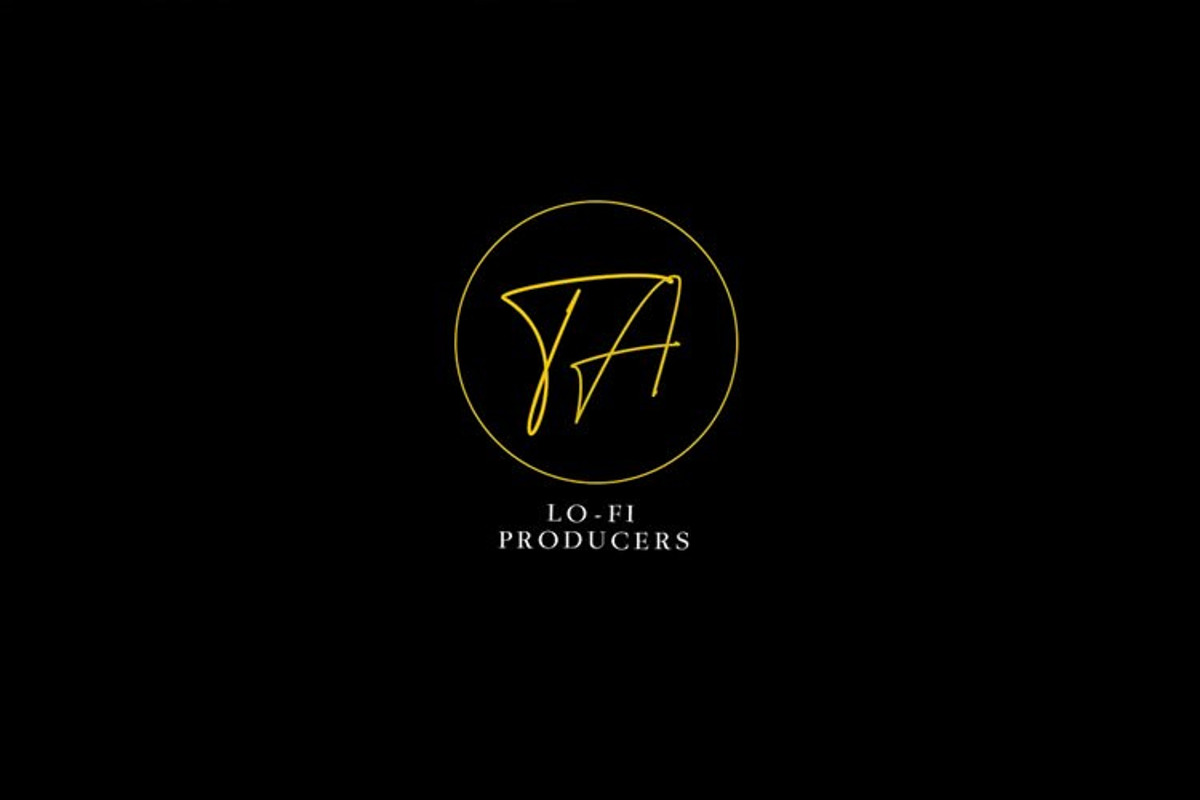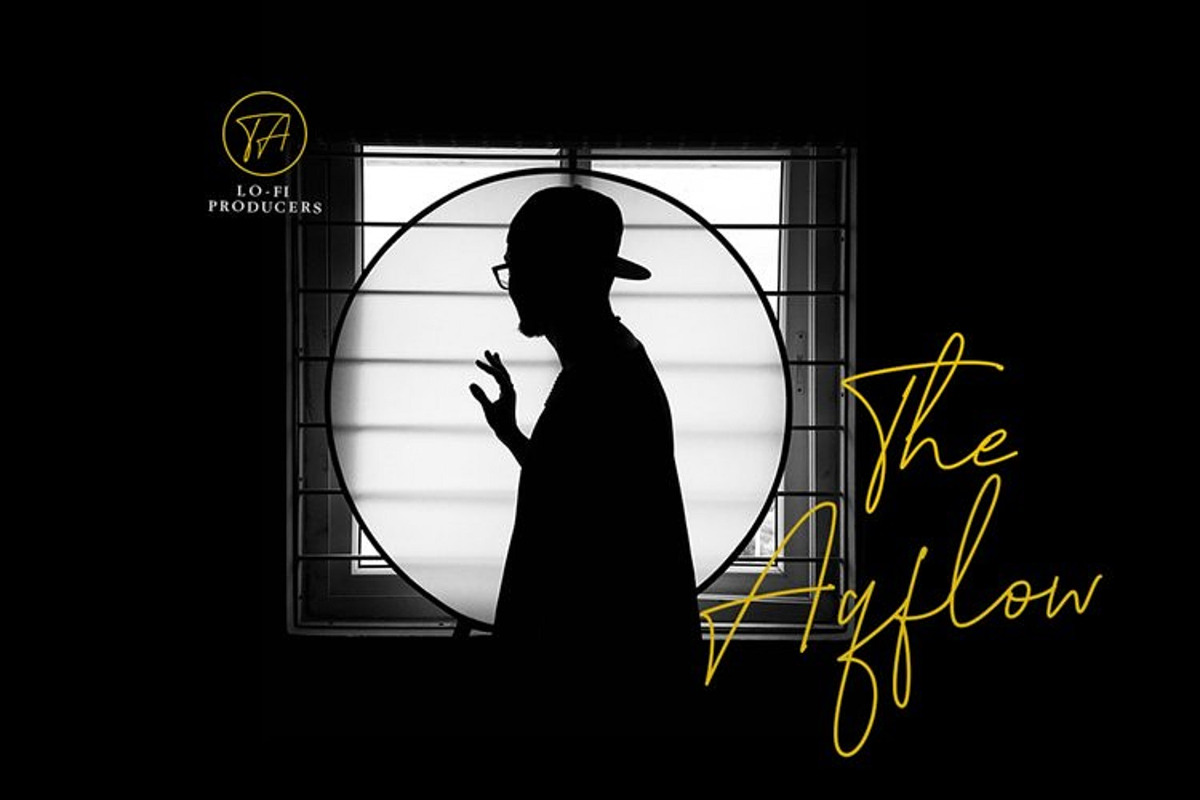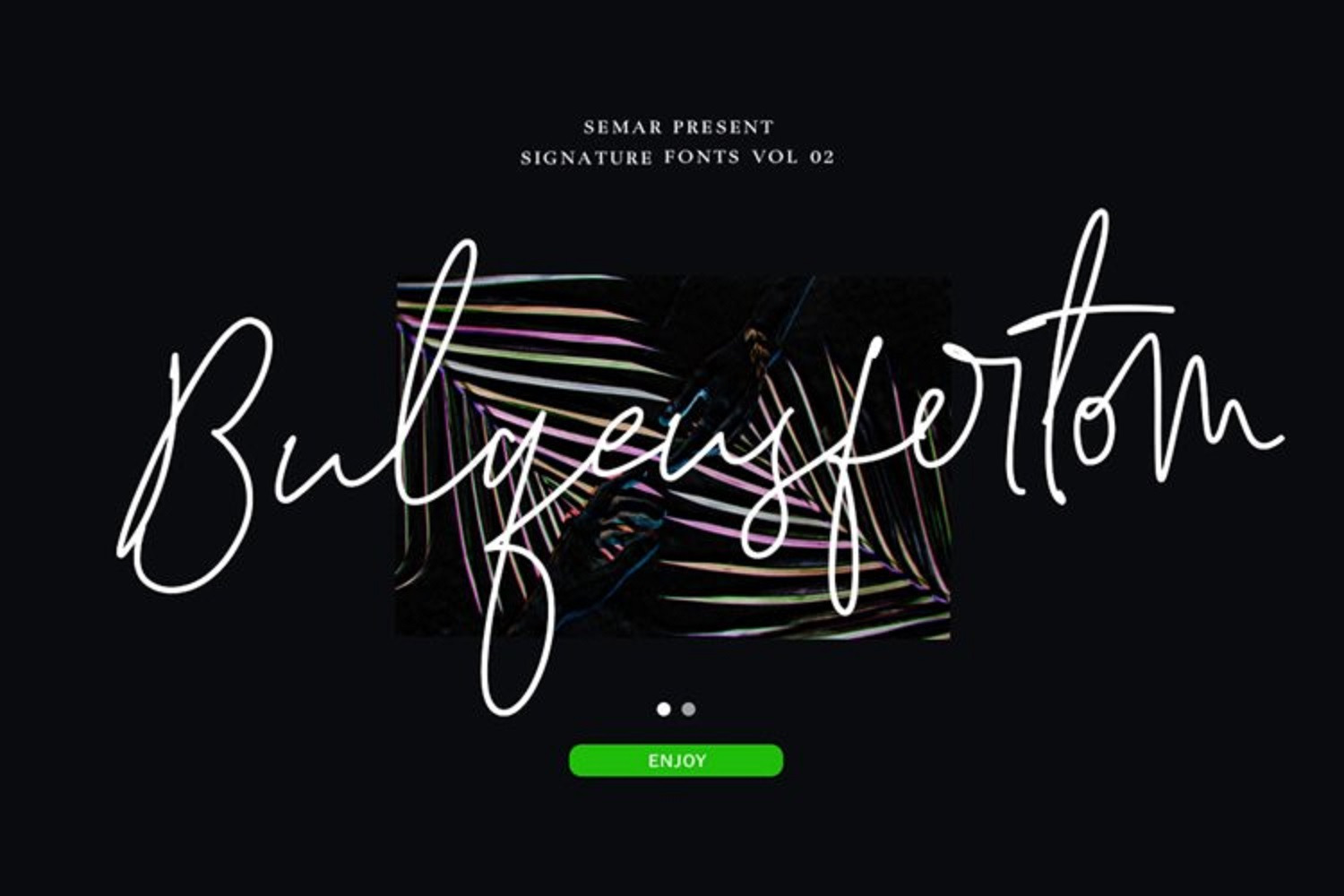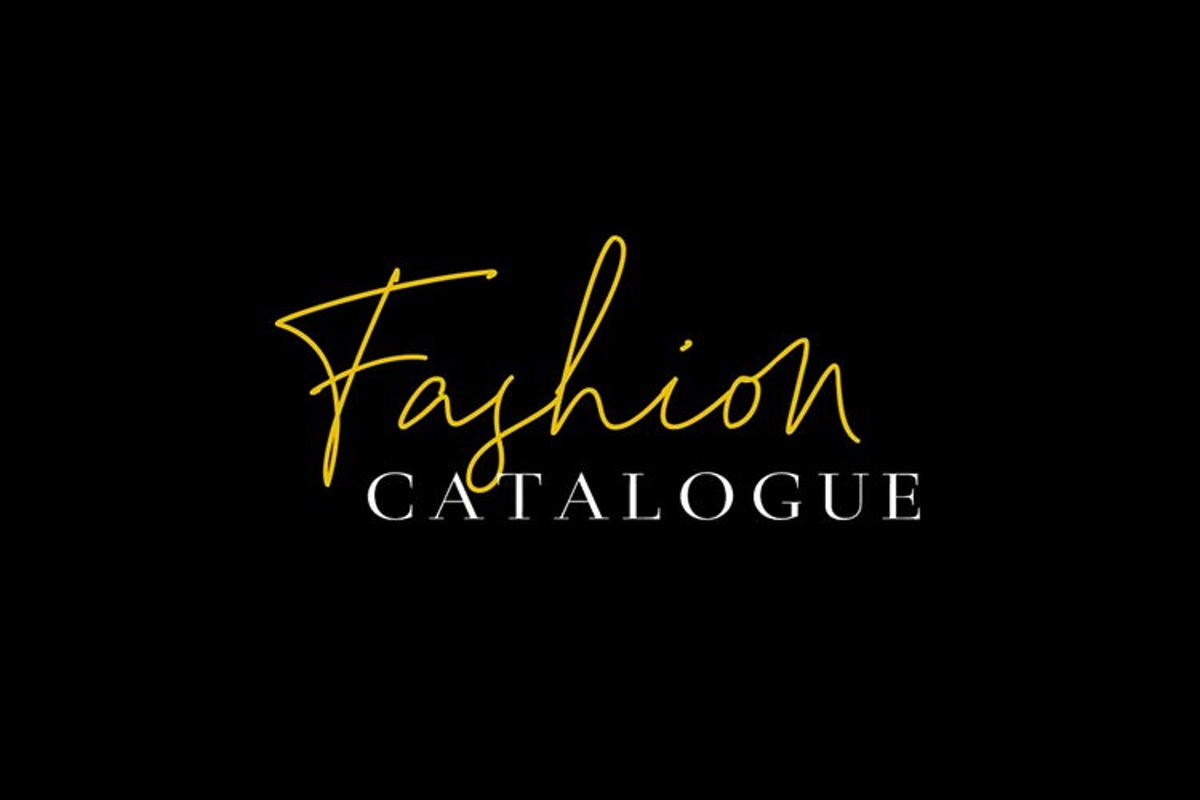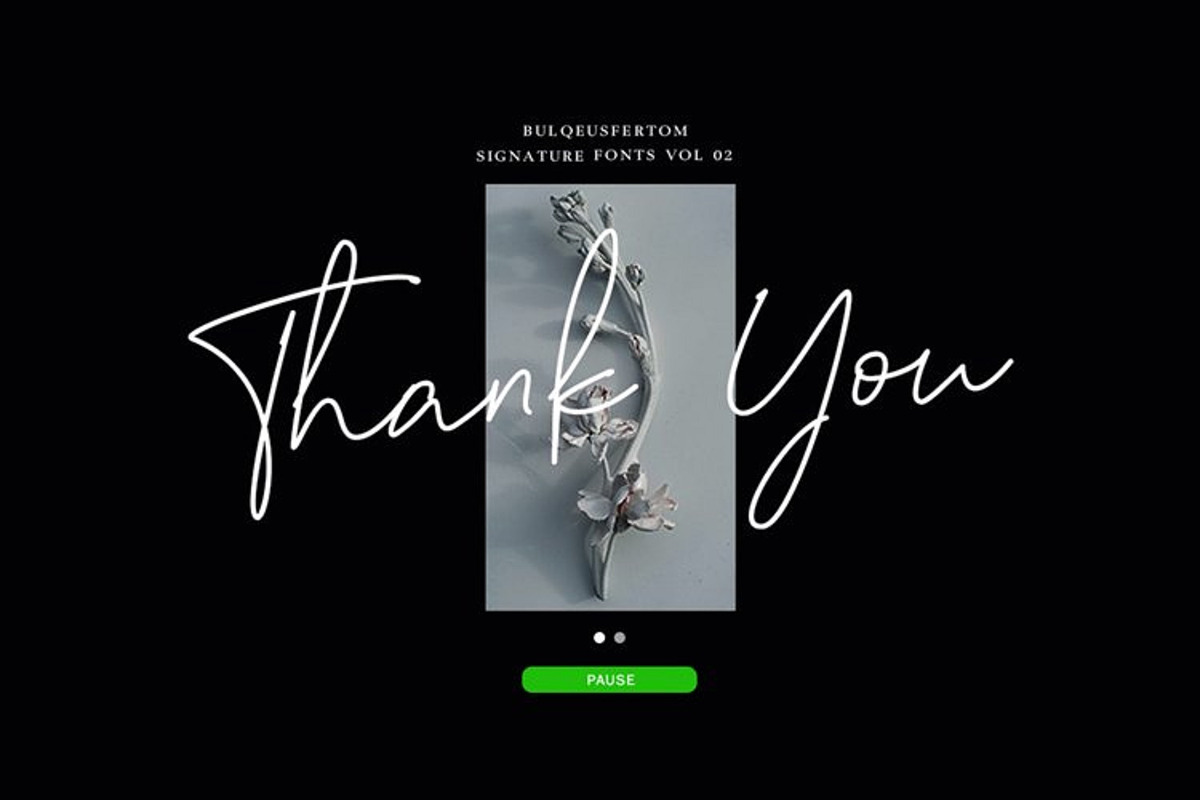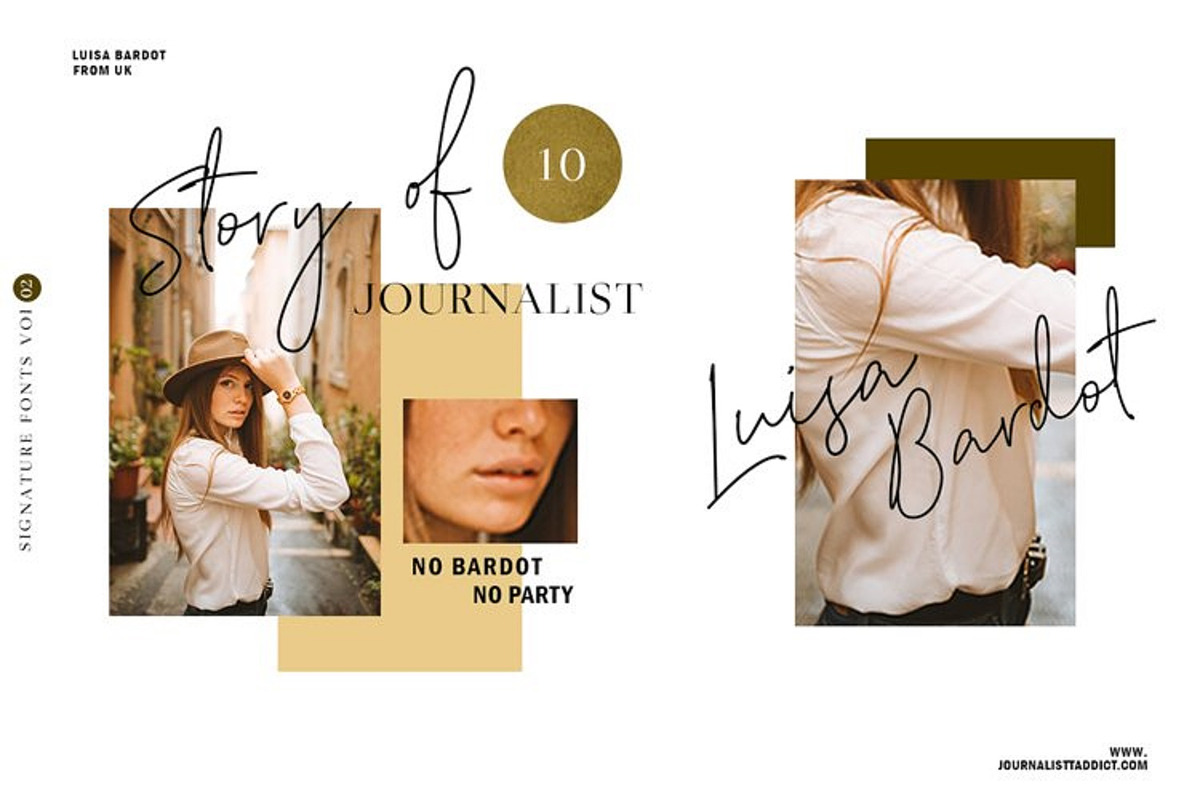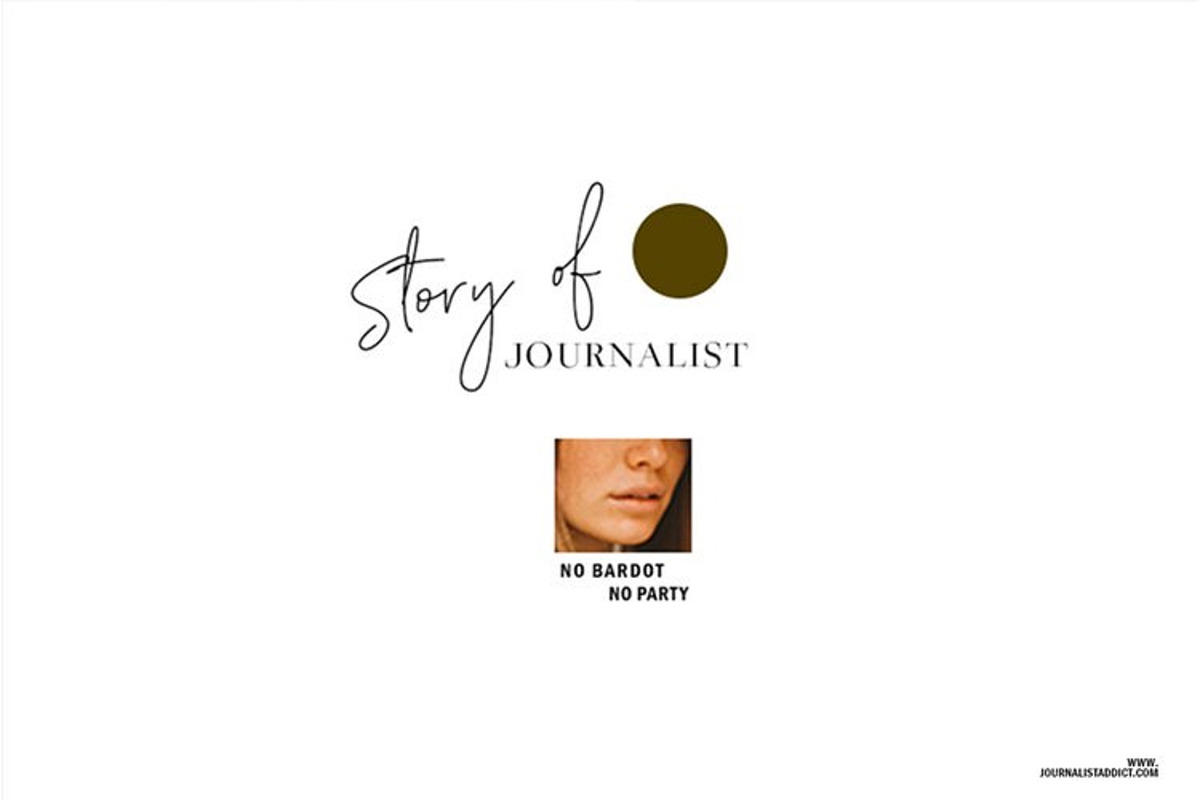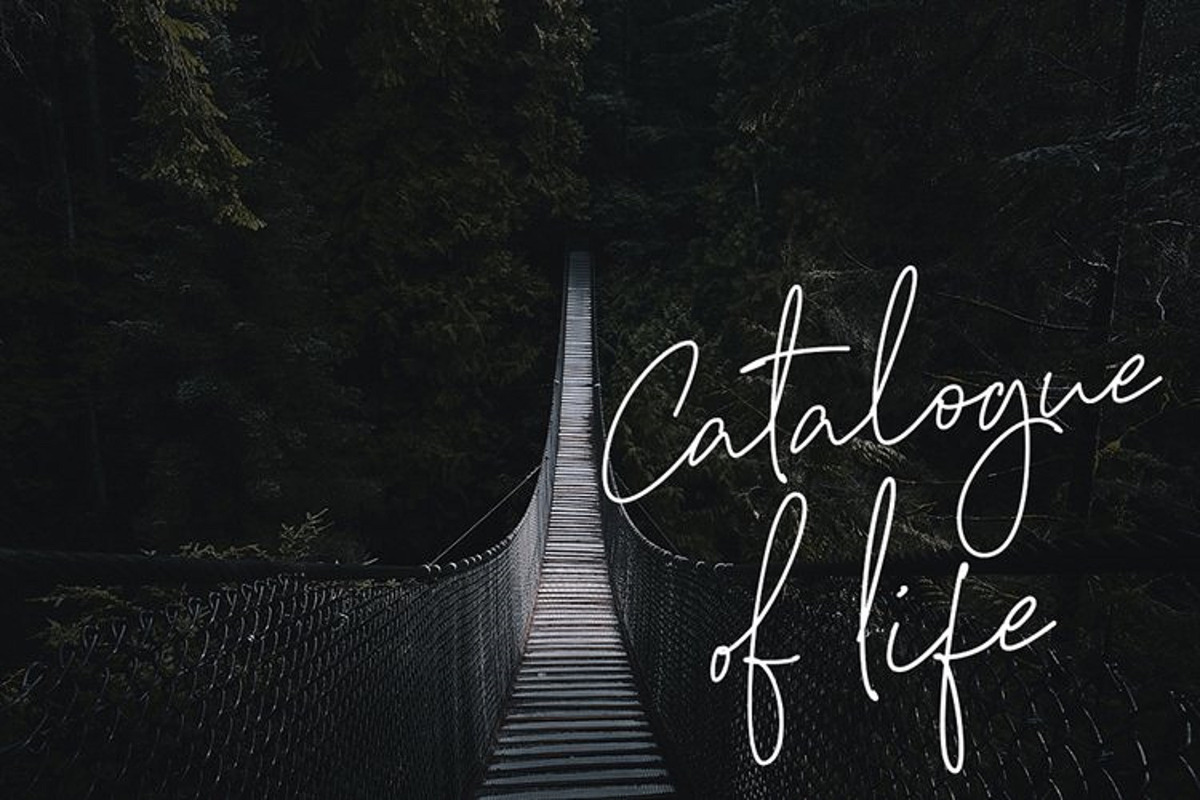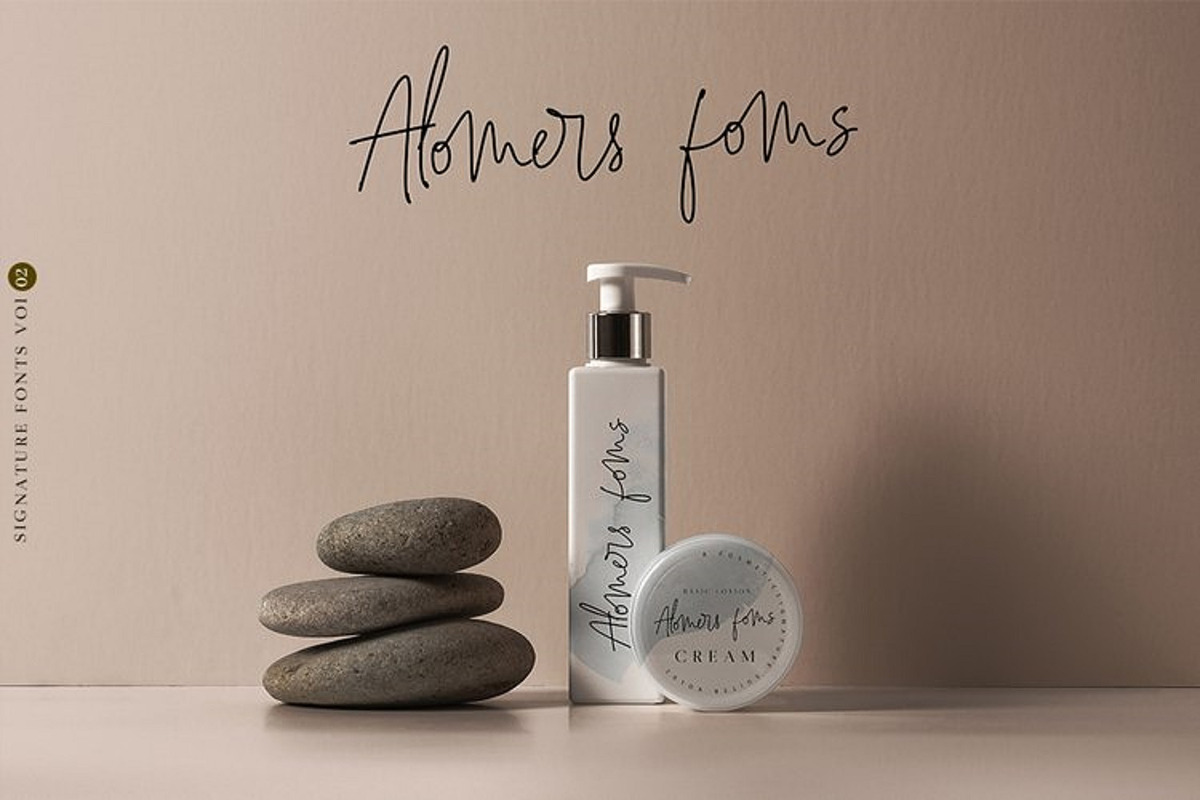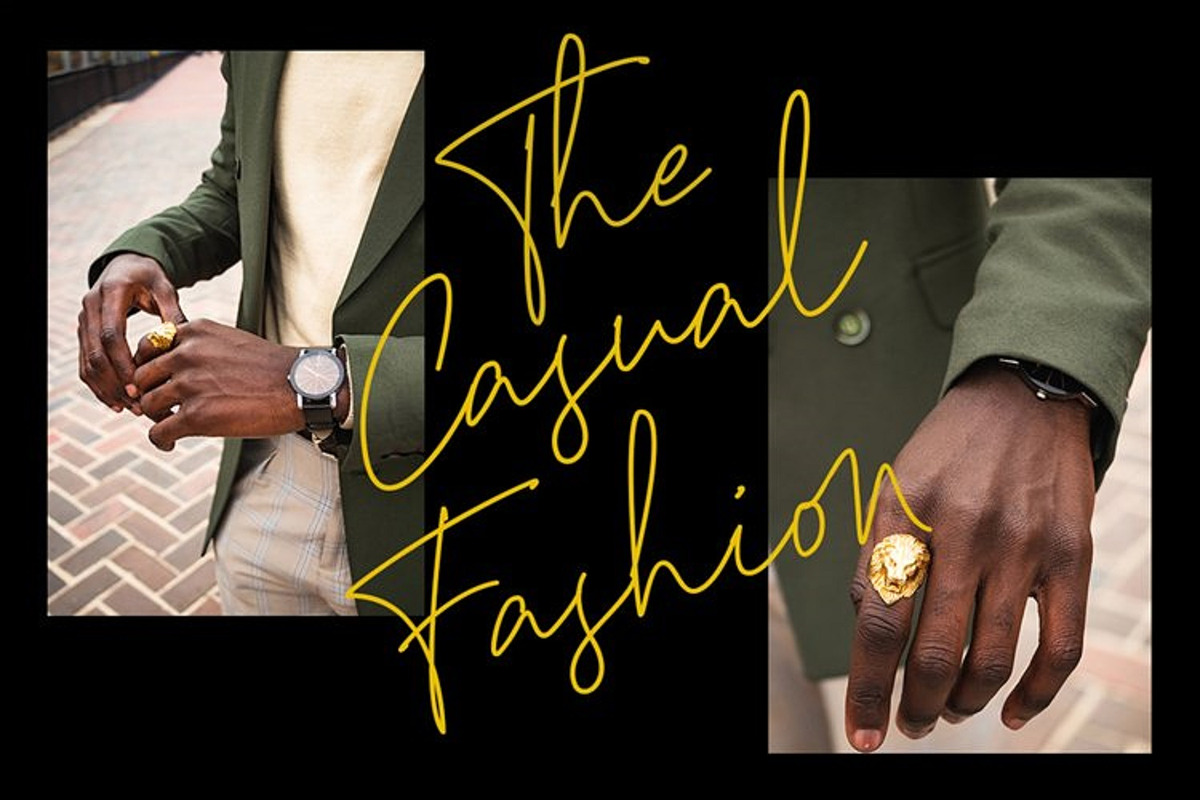
Bulqeusfertom – Elegant Font Vol 2
Bulqeusfertom – Signature Script Font
Introducing Bulqeusfertom, a handcrafted signature font with a modern and elegant touch. Perfect for branding projects, logos, product packaging, wedding designs, social media posts, and stylish quotes.
Part of the Signature Fonts Vol. 02 collection by Black Junst x Semar Studio, this font brings a luxurious handwritten feel that flows beautifully in both uppercase and lowercase forms.
- Unique ligatures for a natural flow
- Stylistic alternates and swashes for extra flair